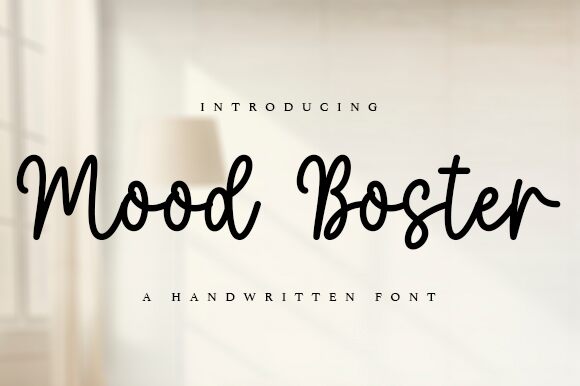
Mood Boster
Mood Booster, designed by Wahyu Studio, is a playful and lively handwritten font.
With its semi-light weight, it exudes a cheerful and carefree vibe perfect for children's book covers, party invitations, and colorful posters. This font type adds a touch of whimsy to recipe cards, inspiring creativity in the kitchen. Its friendly appearance makes it suitable for crafting uplifting quotes on motivational posters or creating eye-catching social media graphics that spread positivity.
Mood Booster brings joy to any project with its fun and energetic personality.